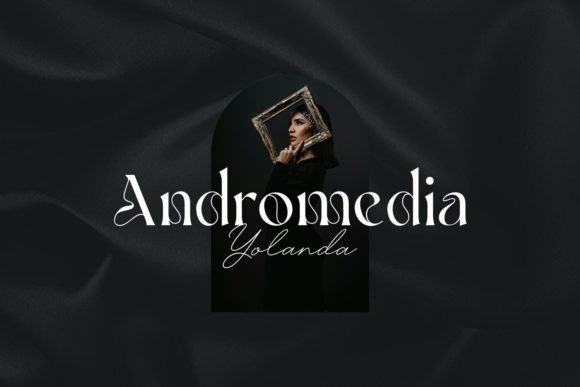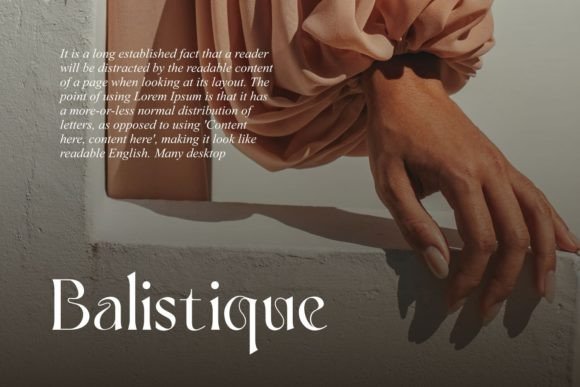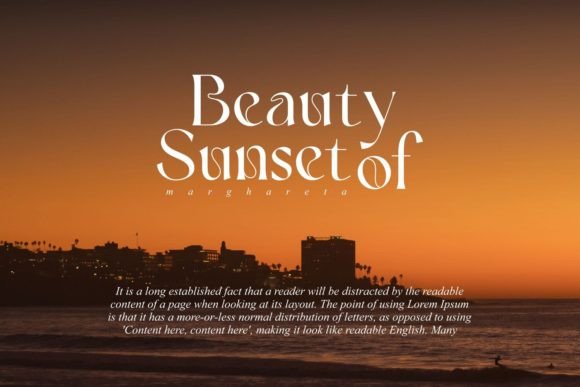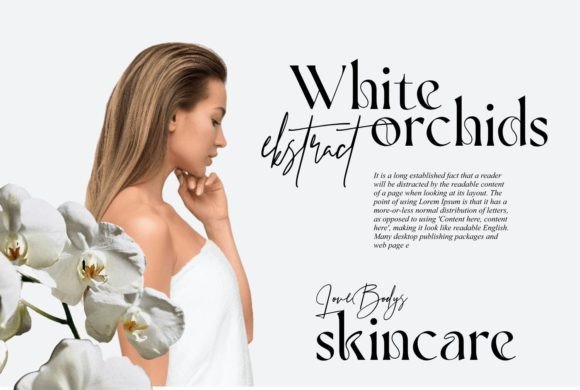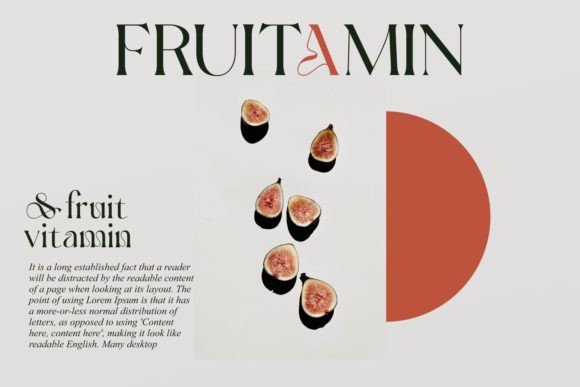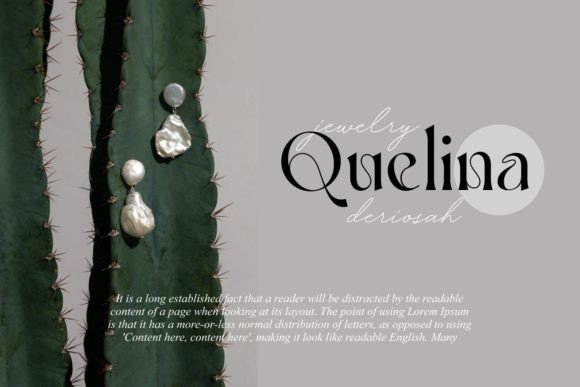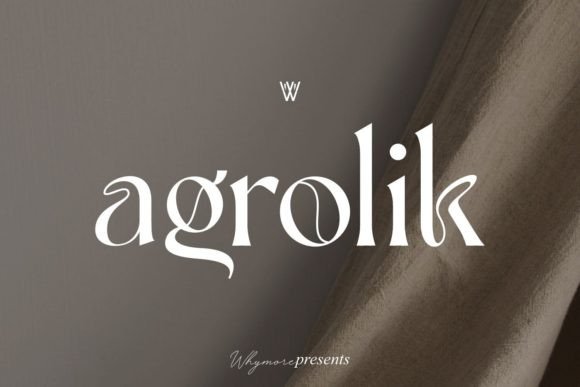
Introducing Agrolik Font: Elevate Your Designs with Elegance and Sophistication
In the world of typography, a font can make or break a design. For designers and crafters seeking to add a touch of elegance and sophistication to their projects, Agrolik Font is an excellent choice. This beautiful serif font boasts a delicate and classy look, making it perfect for a wide range of applications.
What is Agrolik Font?
Agrolik is an elegant serif font, carefully crafted to feature a very delicate and classy look. With its balanced and varied design, Agrolik is neither too thin nor too thick, making it an ideal choice for designers seeking a font that exudes refinement and poise. Whether you’re working on a branding project, a website, or a craft, Agrolik Font is sure to enhance the beauty of your work.
Key Features of Agrolik Font
- Elegant Serif Design: Agrolik Font features a classic serif design, perfect for creating sophisticated and refined designs.
- Balanced and Varied: The font’s balanced and varied design ensures that it’s neither too thin nor too thick, making it easy to read and visually appealing.
- Delicate and Classy Look: Agrolik Font’s delicate and classy look makes it perfect for designs that require a touch of elegance and sophistication.
Who Can Benefit from Agrolik Font?
Agrolik Font is an excellent choice for a wide range of designers and crafters, including:
- Graphic Designers: Agrolik Font is perfect for graphic designers seeking to create elegant and sophisticated designs for their clients.
- Web Designers: The font’s clean and readable design makes it an excellent choice for web designers seeking to create visually appealing and user-friendly websites.
- Crafters: Agrolik Font is also perfect for crafters seeking to add a touch of elegance and sophistication to their handmade projects.
How to Use Agrolik Font in Your Designs
Using Agrolik Font in your designs is easy. Here are a few tips to get you started:
- Pair it with Other Fonts: Agrolik Font pairs well with other fonts, making it easy to create visually appealing and harmonious designs.
- Experiment with Different Sizes: The font’s balanced and varied design makes it easy to use in a variety of sizes, from headings to body text.
- Use it for Headings and Titles: Agrolik Font is perfect for headings and titles, adding a touch of elegance and sophistication to your designs.
Why Choose Agrolik Font?
There are many reasons why designers and crafters should choose Agrolik Font for their projects. Here are a few:
- Unique and Elegant Design: Agrolik Font features a unique and elegant design that sets it apart from other fonts.
- High-Quality and Readable: The font is high-quality and readable, making it perfect for a wide range of applications.
- Easy to Use: Agrolik Font is easy to use and pairs well with other fonts, making it easy to create visually appealing designs.
In conclusion, Agrolik Font is an excellent choice for designers and crafters seeking to add a touch of elegance and sophistication to their projects. With its delicate and classy look, balanced and varied design, and high-quality and readable features, Agrolik Font is perfect for a wide range of applications. Whether you’re working on a branding project, a website, or a craft, Agrolik Font is sure to enhance the beauty of your work.